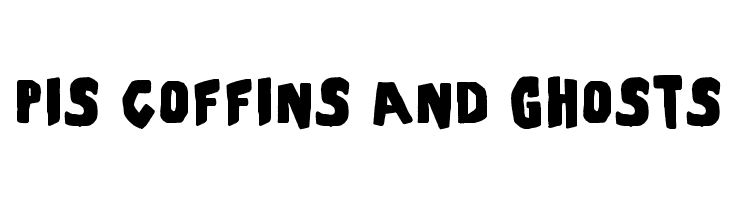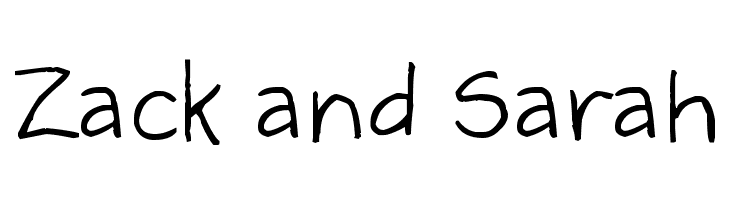
A playful, casual handwritten font with a natural, flowing style.
A playful, bold, hand-drawn font with thick outlines and a cartoonish style.
( Paul Lloyd Fonts )
An ornate and decorative font with intricate swirls and flourishes.
( Ariel Alvares )
A clean, modern sans-serif font with uniform stroke width and excellent readability.
( www.leodsen.com )
A bold, decorative font with a zebra stripe pattern, perfect for eye-catching designs.
( Fonts by Graham Meade - GemFonts )
A modern, geometric outline font with a technical and structured appearance.
A modern, expanded italic font with medium contrast and a dynamic style.
( Fonts by Greg Meronek - GregoryFonts )
A classic serif font with elegant curves and strong stroke contrasts.
( Fonts by Ikrar Bey Khubaib )
Bold cursive script with a handwritten style.